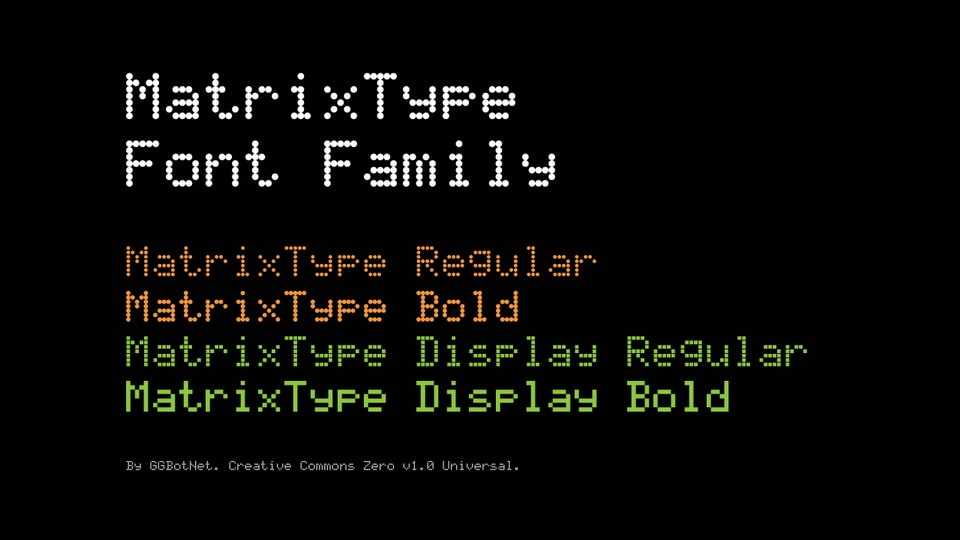
Download MatrixType font, a versatile pixel-based typeface that brings a retro, digital feel with two unique variations: one with classic square pixels and another with rounded dots.